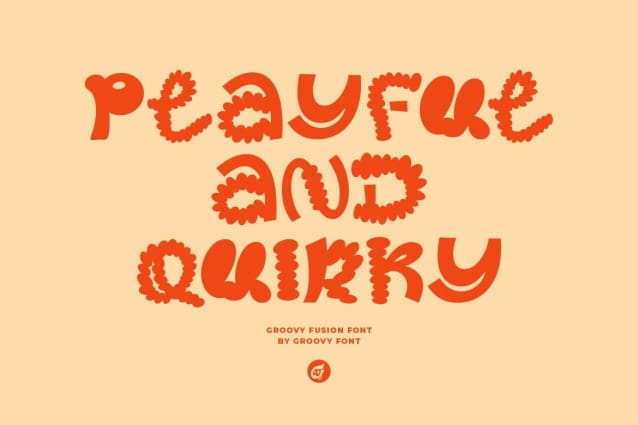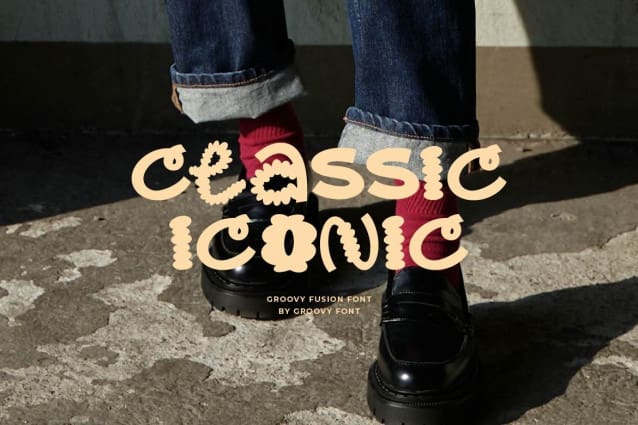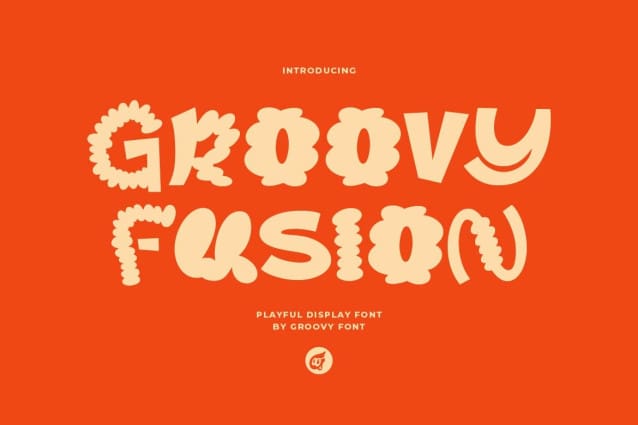
Groovy Fusion Font
Groovy Fusion Font is a playful display font that effortlessly blends different letter styles to create a fun and unique aesthetic. With its mix of bold and curvy lettering, this font is perfect for conveying a sense of creativity and imagination, making it a great fit for children’s designs.
Whether used for a cheerful poster, colorful packaging, or vibrant illustration, Groovy Fusion brings a playful and cheerful feel to any project, making it a fun choice for appealing to a young audience.